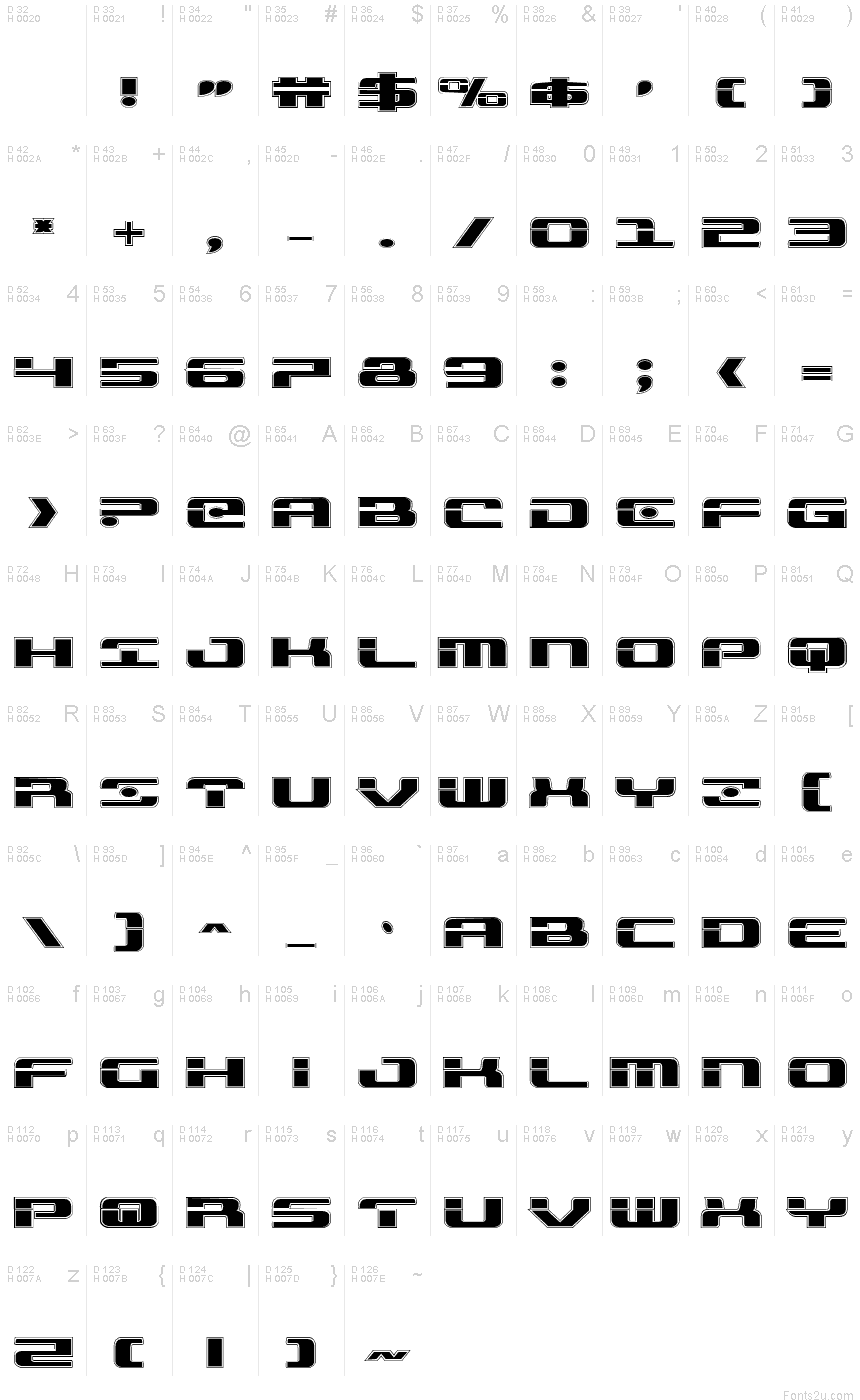
Troopers Academy Expanded by Daniel Zadorozny of Iconian Fonts is a free futuristic outlined display font with very broad, low-slung proportions and a firm horizontal emphasis. Squared curves, rounded outer corners, narrow inset lines, and cutout panel shapes resemble custom markings on spacecraft or armored vehicles.
Digital graphics are its most convincing medium, especially for game interfaces, science-fiction title cards, and esports branding. The extra-wide silhouette feels fast and mechanical. It can also shape merchandise, event posters, and packaging built around futuristic machines, racing culture, or military technology.
Troopers Academy Expanded